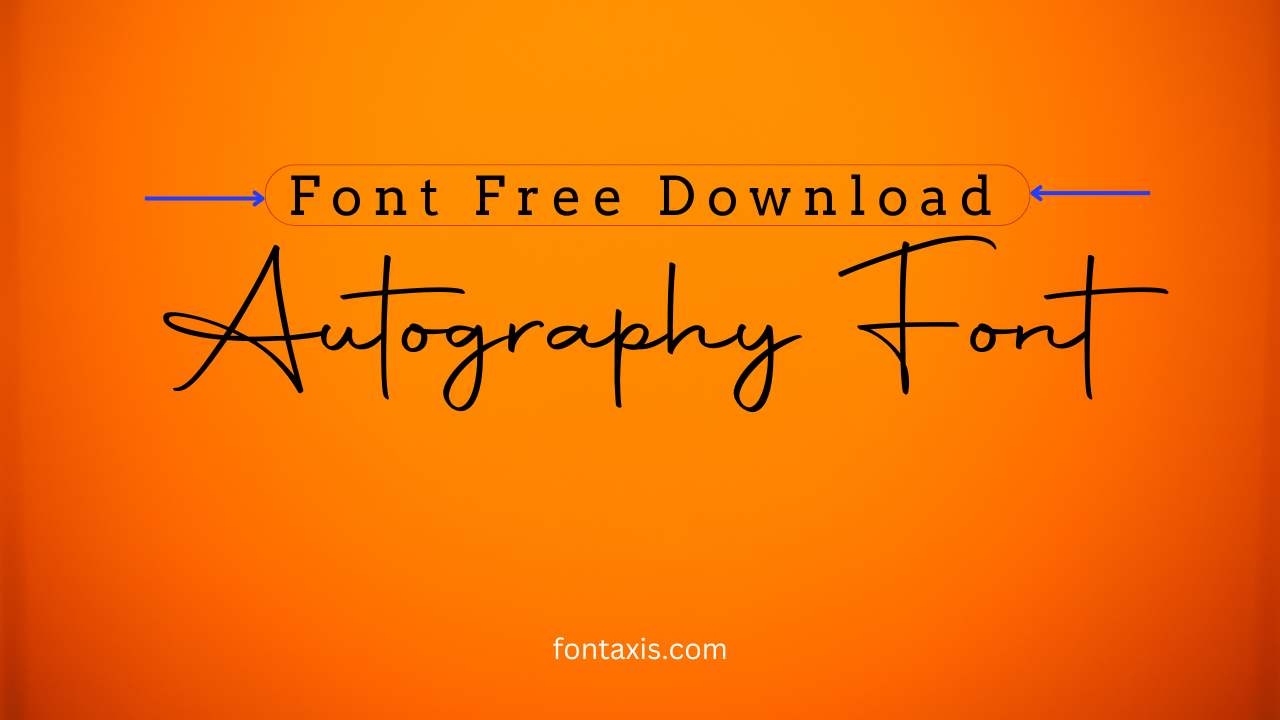
Autography Font is a charming script typeface designed by Hendra Pratama. Released on November 6, 2020, this free personal-use font combines a modern aesthetic with the elegance of handwritten design.
Autography Font features stylistic alternates for varied design options, ligatures to enhance typographic flow, contextual alternates for dynamic letterforms, and swashes to add decorative elements. It supports over 40 Basic Latin languages and includes a total of 277 glyphs.
Where Autography Font Is In Use
Autography blends modern elegance with classic script characteristics, featuring fluid strokes and stylish alternates that evoke a handwritten, personalized feel. It stands out with its fresh, signature-style design, contrasting with more traditional or rigid script fonts by offering more creative flexibility and modern charm. Autography is perfect for:
- Stationery
- Personalized Gifts
- Logotypes
- Autographs
- Product Designs
- Labels
- Photography Watermarks
- Invitations
- Fashion Magazines
- Book Covers
- Quotes
1. What Are The Limitations Of Autography Font In Terms Of Readability?
Autography’s decorative script style can hinder readability in small sizes or dense text, making it less suitable for body text or detailed information.
2. How To Choose The Right Autography Font For A Specific Project?
Select the Autography style that matches the project’s tone—use Regular for elegant, formal designs and consider stylistic alternates for added flair and personalization.
3. What Are The Best Autography Font Styles For Branding And Identity Design?
For branding and identity, Autography Regular is ideal for its clean, sophisticated look, while stylistic alternates and swashes add a unique, memorable touch.
4. What Are The Design Trends Related To Autography Font In 2021?
In 2021, Autography Font trends included combining it with minimalist designs, using it for elegant branding, and integrating swashes and ligatures for a personalized, modern aesthetic.